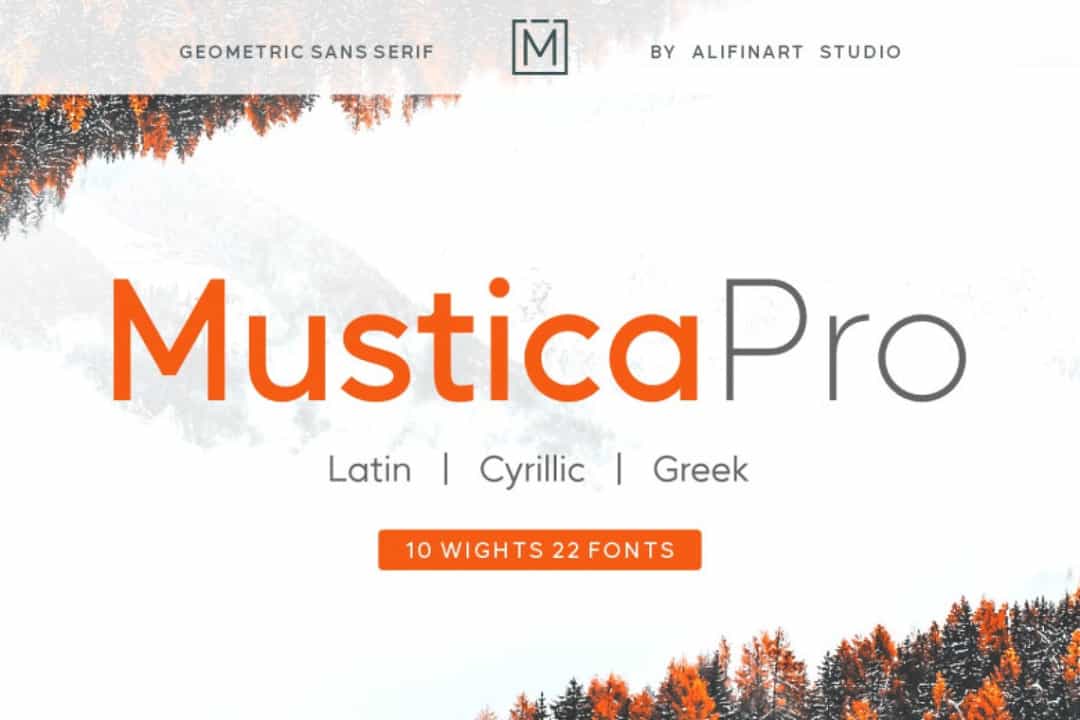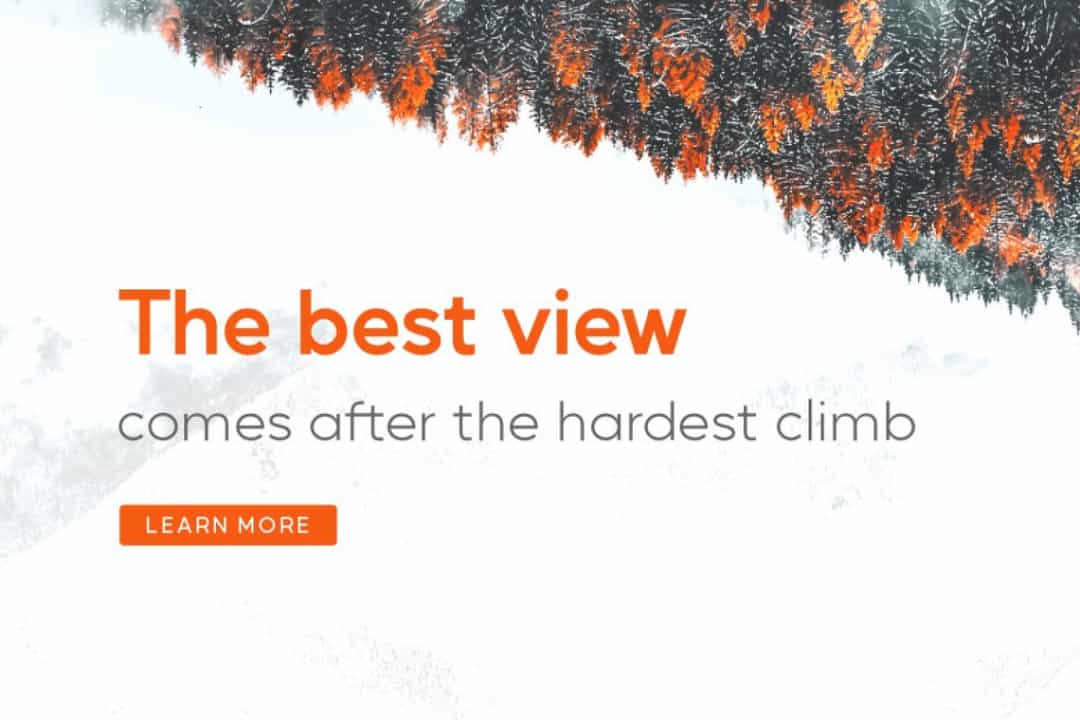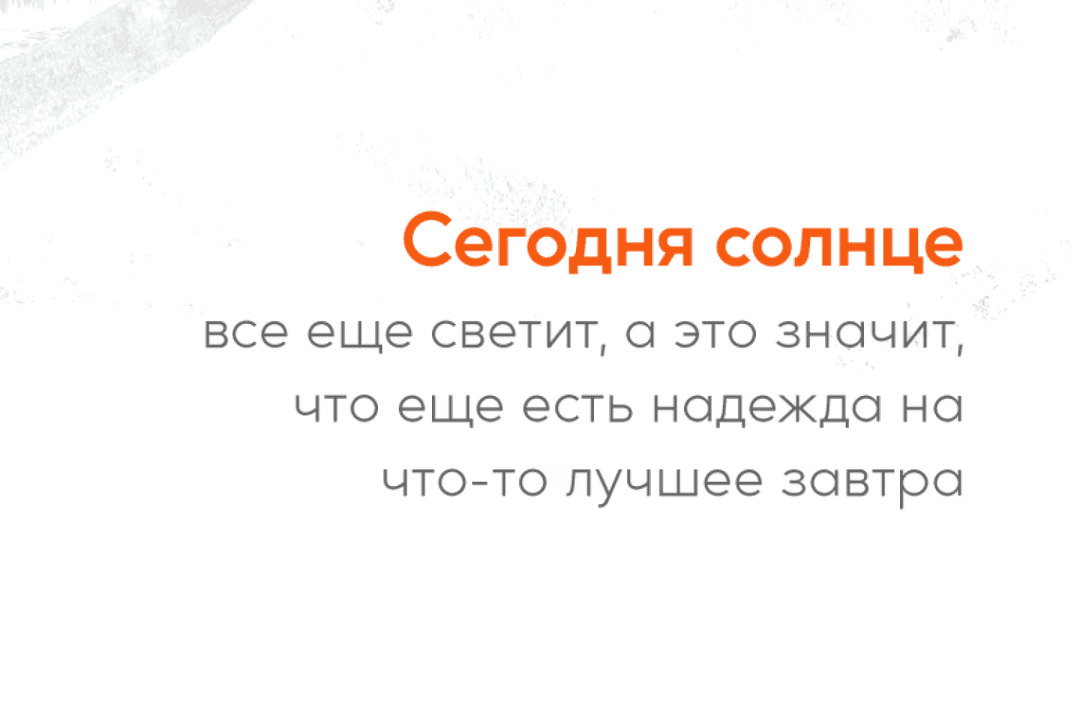
Mustica Pro is an elegant and geometric sans serif font with many OpenType features that is suitable for Latin, Cyrillic and Greek languages. In Asian cultures Mustica does not simply refer to being clever or courageous – instead it means something much deeper! In this respect Mustica Pro was created using maximum effort in order to become one of the most desirable Modern sans serif fonts available today.